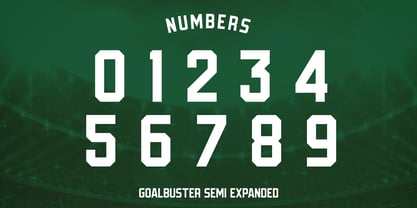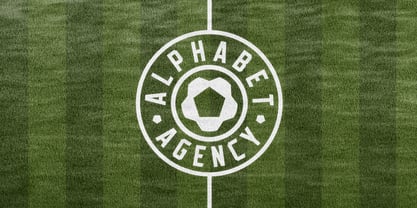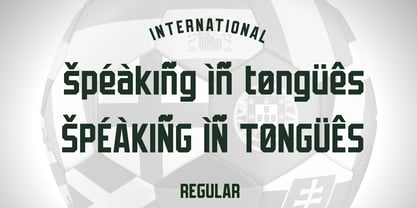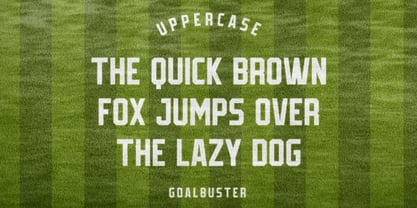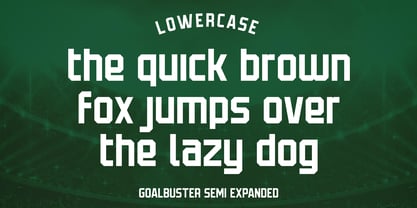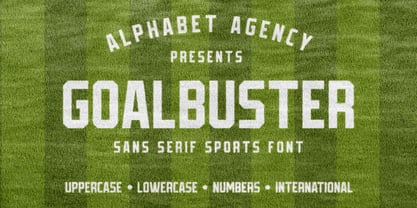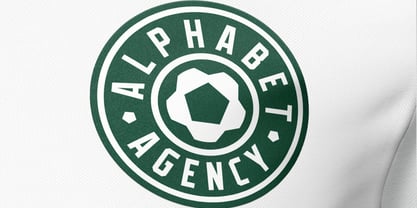
Goalbuster
by Alphabet Agency
The Goalbuster Font Family was designed by Swinn Jonathan and published by Alphabet Agency. Goalbuster contains 2 styles and family package options. More about this family
Goalbuster Regular and Semi Extended are sans serif fonts design by Jonathan Swinn of the Alphabet Agency Font Foundry. The fonts were originally designed for use in football / soccer themed branding but also work very well in other sports themed design.
Each of the fonts includes Latin uppercase, lowercase, numbers and punctuation letters.
The font has fully kerned pairs.